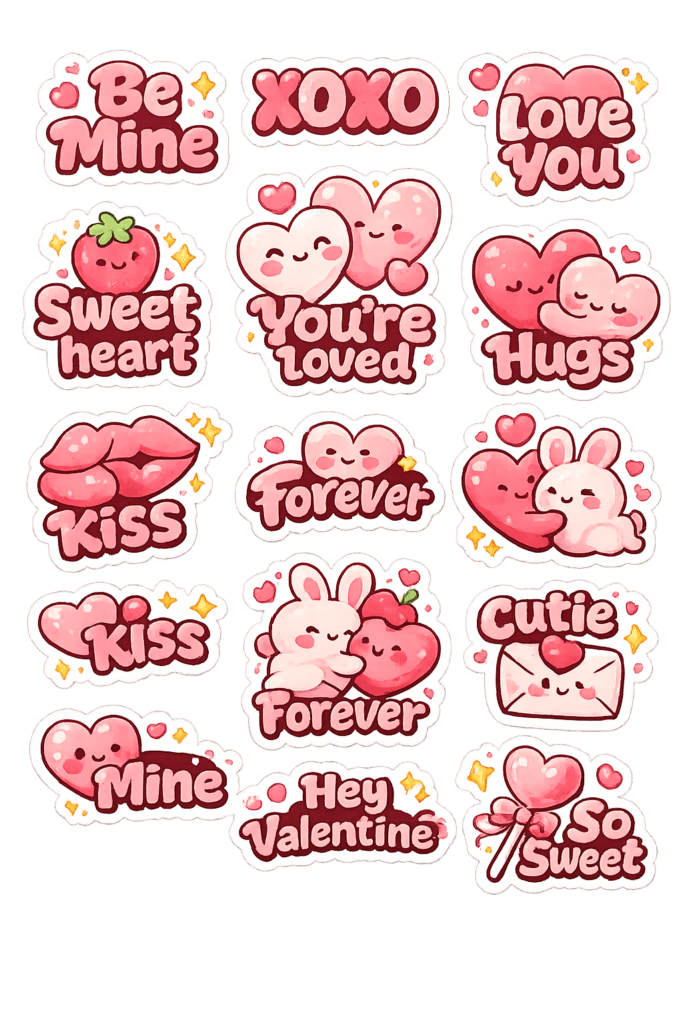
If you sell gifts box packaging, make printables, or design sticker sheets, valentine sticker AI prompts can save hours. The key is not just generating “cute hearts.” It’s creating quote stickers that look clean at small sizes, feel consistent as a set, and match the vibe your customers want.
In this guide, you’ll get valentine sticker AI prompts you can copy-paste, plus simple style rules so your results look like a real product line, not random outputs.
Valentine Sticker AI Prompts that Make Quote Stickers Look Pro
Before the prompt list, set your “sticker rules.” These small constraints improve quality fast.
Valentine sticker AI prompts sticker setup checklist
Use these constraints inside your prompt:
Style: kawaii, minimal, retro, doodle, or line art
Outline: thick white border (die-cut look)
Background: transparent or plain white (choose one)
Text: bold, readable, short quotes
Finish: matte sticker texture or clean vector look
Composition: centered, not crowded
No clutter: no extra text, no watermarks, no logos
These rules help your valentine sticker AI prompts create sticker-ready results.
Valentine Sticker AI Prompts for Short Love Quote Stickers
Use these valentine sticker AI prompts when you want quick, best-selling lines that fit small stickers.
Prompt: “Die-cut sticker, thick white outline, pastel pink and red palette, cute hand-lettered quote ‘Be Mine’, small hearts, clean spacing, high readability, transparent background.”
“Die-cut sticker, playful typography quote ‘Sweetheart’, candy accents, clean layout, thick white border.”
“Minimal sticker, black text on white, quote ‘You + Me’, thin heart icon, clean modern sans serif, lots of white space.”
“Kawaii sticker, rounded lettering quote ‘XOXO’, candy-heart vibe, soft gradients, thick outline, transparent background.”
“Retro sticker, 70s color palette, groovy typography quote ‘Love Wins’, subtle grain, thick border, transparent background.”
“Cute sticker, handwritten script quote ‘Forever’, tiny rose doodles, simple border, no background.”
“Sticker design, bold serif quote ‘Always Yours’, tiny ribbon banner, minimal hearts, transparent background.”
“Die-cut sticker, bold bubble lettering quote ‘Love You’, glossy highlight style, tiny sparkles, simple composition, transparent background.”
Example | Image Source: ChatGPT
You can reuse these valentine sticker AI prompts as a base, then swap the quote words to build a full set.
Valentine Sticker AI Prompts for Romantic Love Quote Stickers
These valentine sticker AI prompts lean more “couples” than “cute.”
- “Elegant sticker, refined script quote ‘My One and Only’, minimal rose line art, soft blush palette, thick white outline, transparent background.”
“Minimal luxury sticker, modern serif quote ‘All My Love’, small monoline heart, clean spacing, black + blush palette.”
“Sticker, classic wedding vibe, quote ‘Happily Ever After’, tiny floral corners, clean layout, high readability.”
“Sticker, modern romantic, quote ‘Still Falling For You’, simple heart arrow icon, balanced composition, thick border.”
“Sticker, dreamy romantic, quote ‘Love in Bloom’, soft watercolor flower accents, thick outline, no background.”
“Sticker, premium minimal, quote ‘With You’, large whitespace, small rose icon, clean sans serif.”
“Sticker, cozy romantic, quote ‘You Feel Like Home’, warm color palette, minimal doodle house-heart icon, transparent background.”
Example | Image Source: ChatGPT
If you’re building a wedding-friendly product line, these valentine sticker AI prompts give a clean, giftable feel.
Valentine Sticker AI Prompts for Funny Love Quote Stickers
Funny quote stickers sell well for friends, couples, and “anti-cringe” buyers. Use these valentine sticker AI prompts for playful sets.
- “Sticker, playful, quote ‘Text Me Forever’, phone icon with heart notification, clean vector look.”
“Sticker, playful typography, quote ‘You’re My Favorite’, minimal sparkles, clean spacing, pastel palette.”
“Funny sticker, quote ‘Love You More’, two speech bubbles, simple doodle style, thick outline.”
“Sticker, retro comic style, quote ‘Smooch Approved’, halftone dots, bold bubble letters, simple hearts.”
“Cute sticker, quote ‘I’m Yours (No Returns)’, tiny receipt icon, minimal doodles, high readability.”
“Kawaii sticker, quote ‘I Like You a Lot’, cute cat holding heart, bold readable lettering, thick border, transparent background.”
Example | Image Source: ChatGPT
These valentine sticker AI prompts work best when the illustration is simple and the text stays dominant.
Valentine Sticker AI Prompts for Friendship and “Galentine” Quote Stickers
Gift sellers often want sets beyond romance. These valentine sticker AI prompts target friends and “Galentine” vibes.
- “Sticker sheet style, quote ‘Bestie Love’, cute hearts, pink + red palette, thick white border, transparent background.”
Wrong background: specify “transparent background” every time.
Inconsistent pack: repeat the same palette and outline rules.
Small fixes like these make valentine sticker AI prompts produce cleaner, sellable art.
The best sticker packs come from consistency, not randomness. Start with 5 strong base valentine sticker AI prompts, lock your style rules, then create variations by swapping quotes and icons. That’s how you build a full product line that looks intentional.